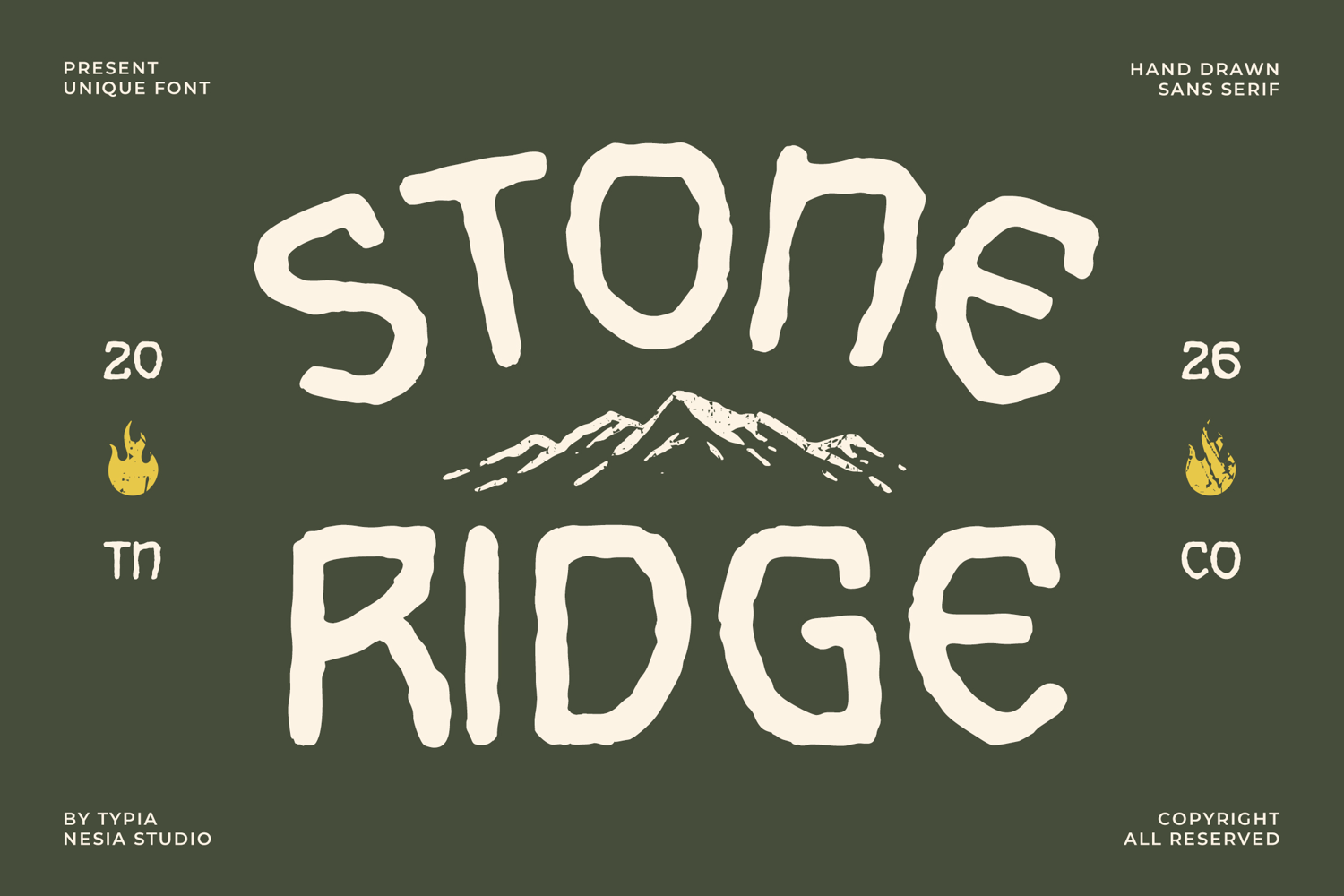
Stone Ridge - Rough Vintage Hand Drawn Font
Stone Ridge - Rough Vintage Hand Drawn Font - Outdoor Logo Display Font
Stone Ridge is a rough vintage hand-drawn sans font inspired by rugged landscapes and outdoor adventure culture. Crafted with textured strokes and organic imperfections, this typeface blends retro charm with rustic authenticity, creating a bold and naturally rugged character. Its distinctive style makes it perfect for logo design, branding, packaging, posters, badges, outdoor adventure themes such as camping brands, mountain-inspired graphics, lifestyle packaging, adventure promotions, and any project that needs a powerful, grounded, and authentic visual presence.
Stone Ridge